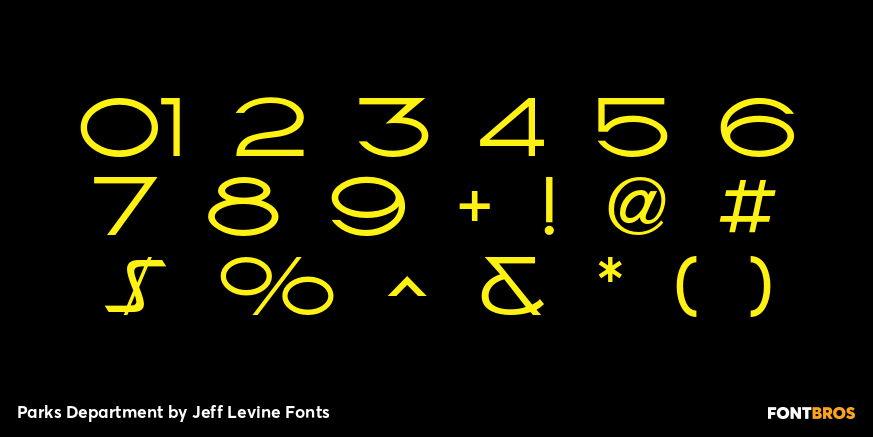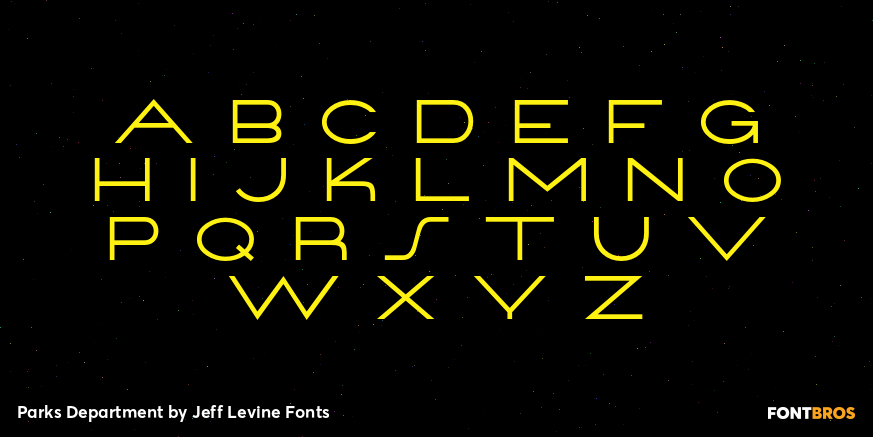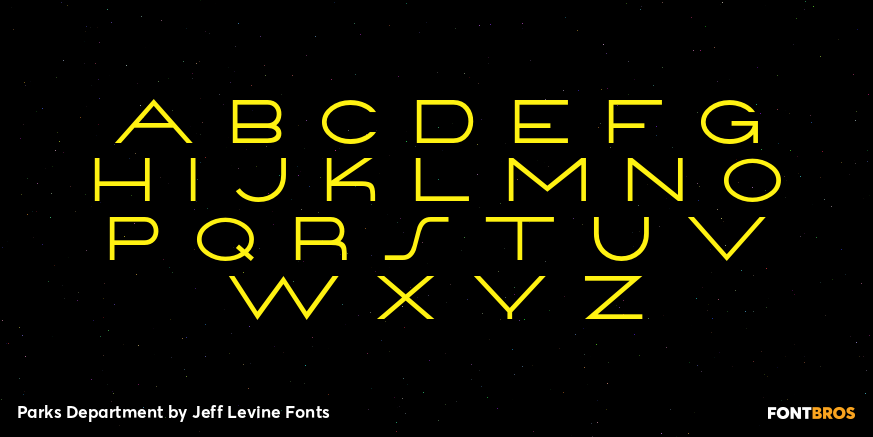
Parks Department
A WPA (Works Progress Administration) sponsored Water Carnival taking place in Central Park in the1930s had 'Department of Parks, City of New York” in the thin Art Deco hand lettering which is now available as Parks Department JNL.
Parks Department JNL Regular by Jeff Levine Fonts